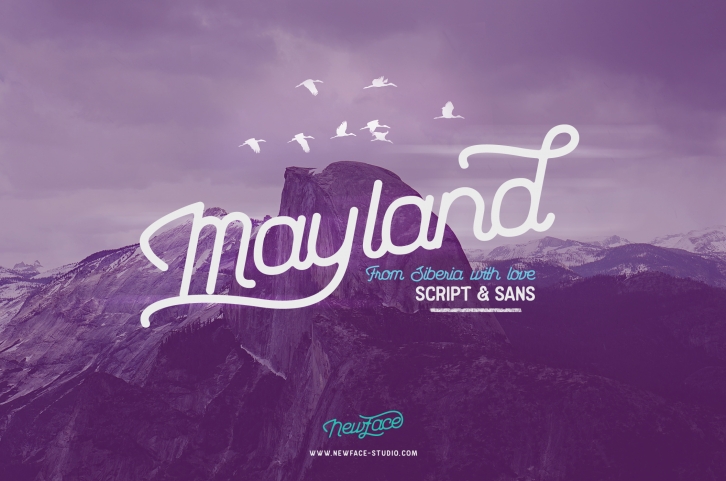
Mayland is a trendy and unique font with an authentic style. It was designed by Newface and it's a great choice for creative people who need such a font. It was released on April 8, 2017 and the file size is 14.7 MB. Mayland will add an organic vibe to any design idea!